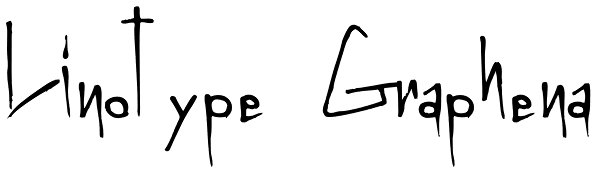
Linotype Graphena
Linotype Graphena is part of the Take Type Library, selected from the contestants of Linotype’s International Digital Type Design Contests of 1994 and 1997. It is a handwriting font designed by the Italian artist Giancarlo Barison. Consciously...